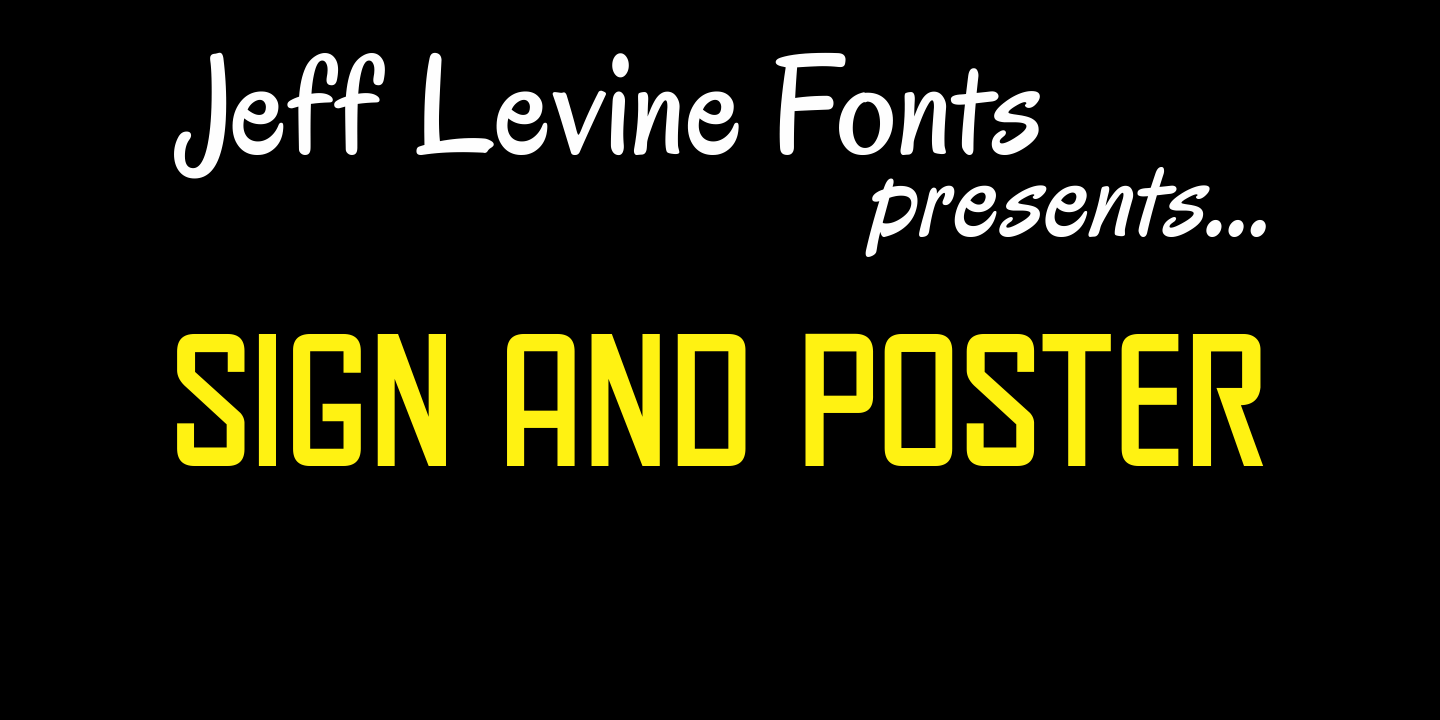
Sign and Poster
Sign and Poster JNL is modeled after a popular style of die-cut letters and numbers that was used for making signage and show cards. A strong Deco influence is seen in these letterforms and blends well into most design projects.